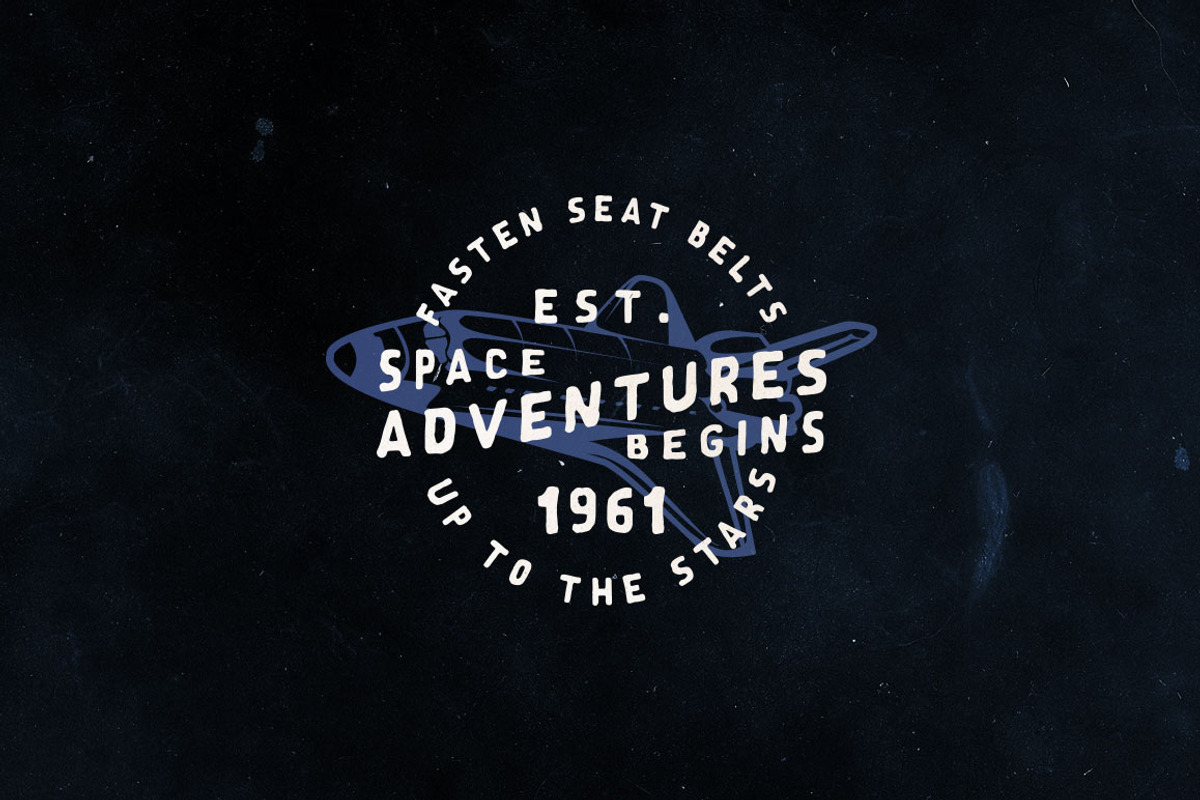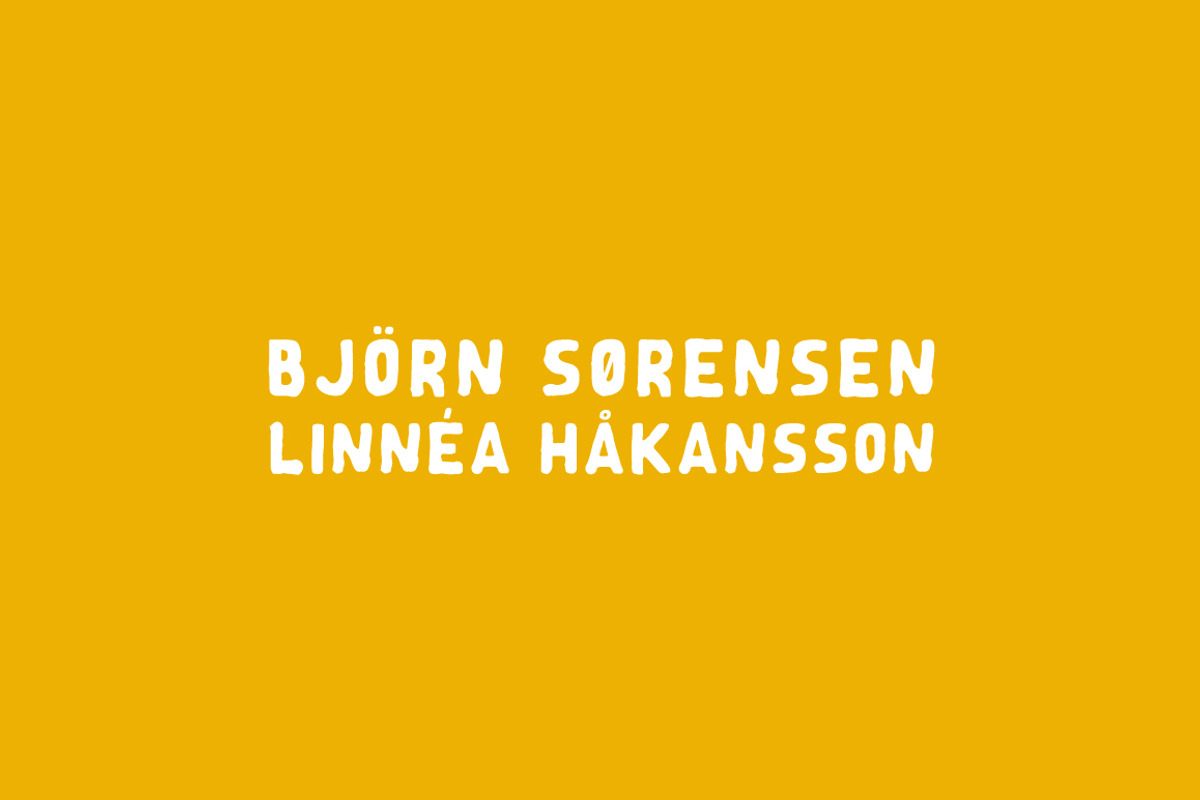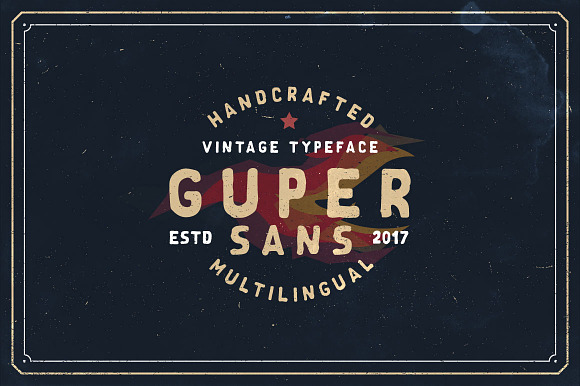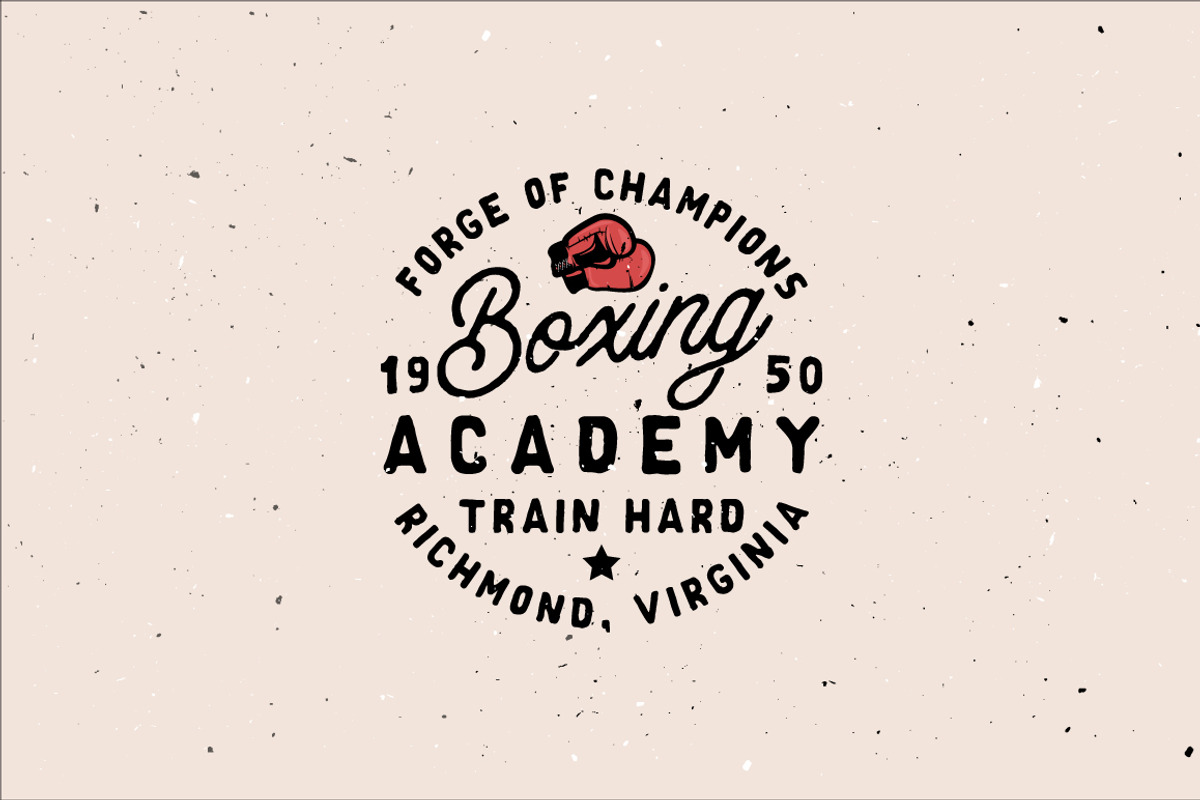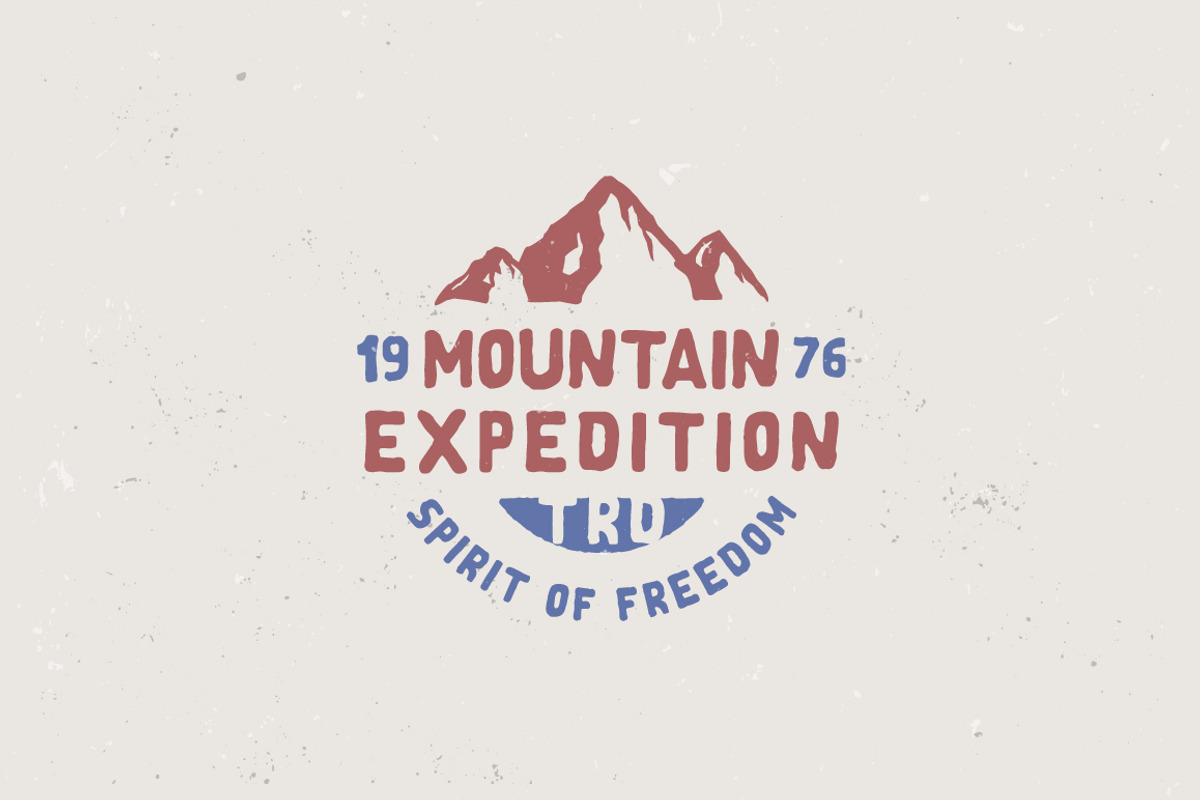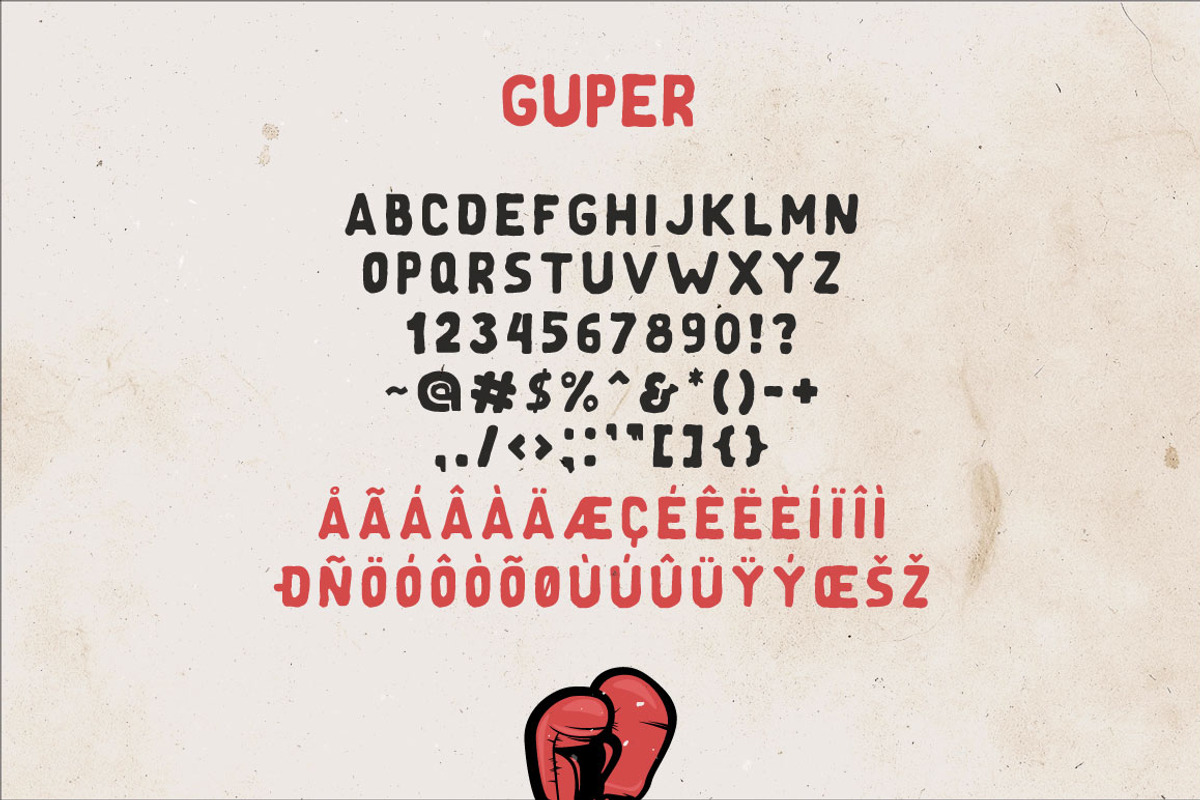
Guper Sans - Handcrafted Font
Guper Sans is a handcrafted vintage typeface inspired by badges, labels, vintage logo designs and retro typography designs. Make your traditional old-fashioned design with Guper Sans. This one perfectly suitable for logo designs, t-shirt prints, motivational and inspirational quotes, typography design, cards, flyers, event posters and more more.
If you need to create a handwriting font effect with slight rustic effect, the Guper is ideal for this purpose. in my opinion, Guper looks better in small sizes, in particular as a background text in the logo. But if you need to focus on handwritten text effect, feel free to use it as the main big text in the center of logo ;)